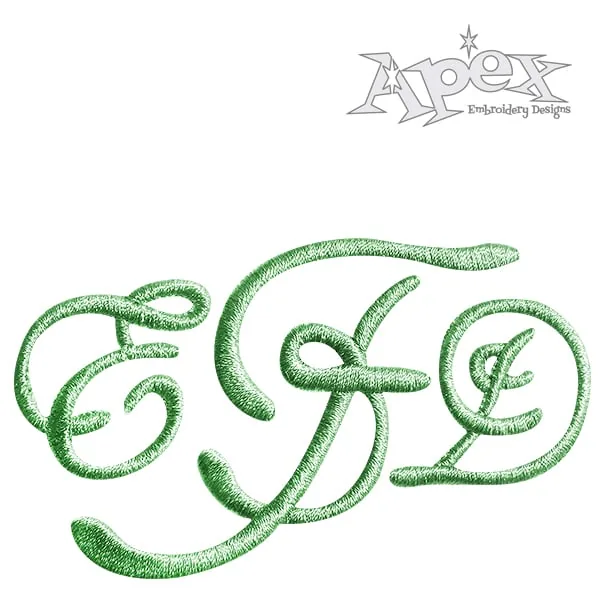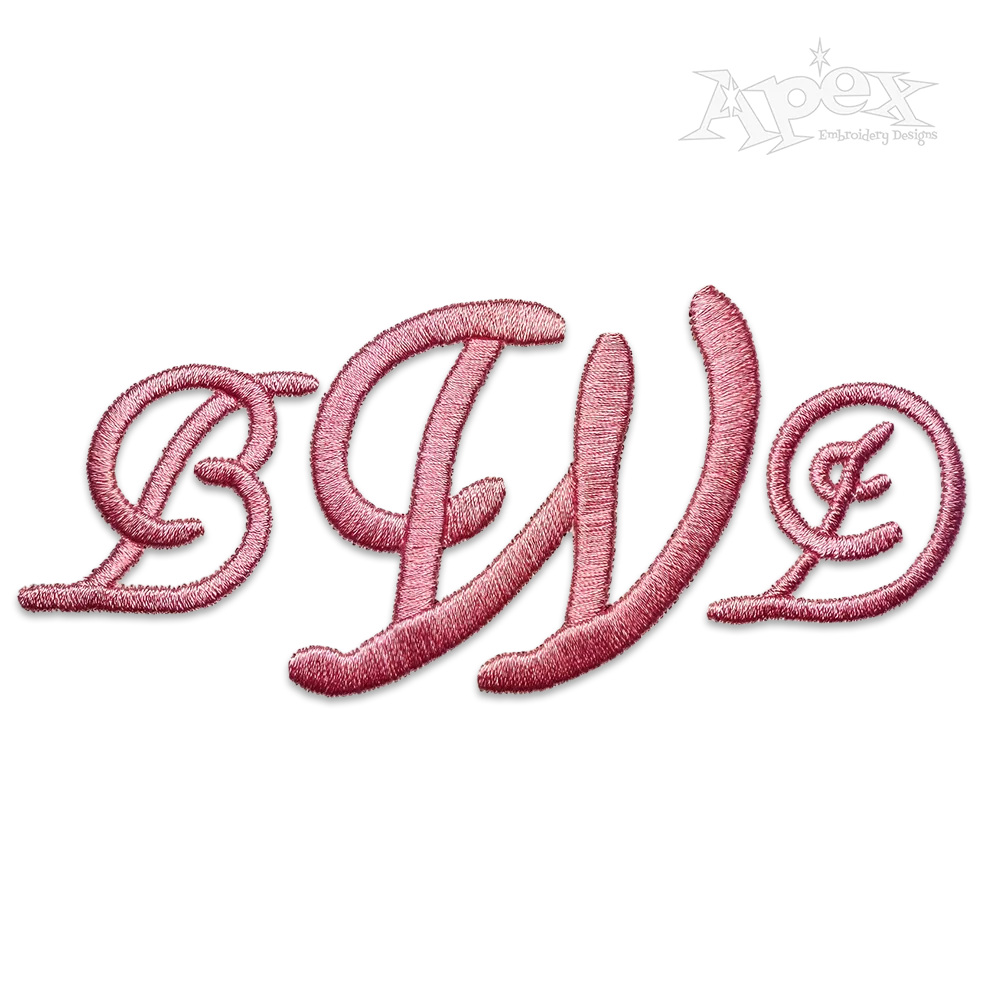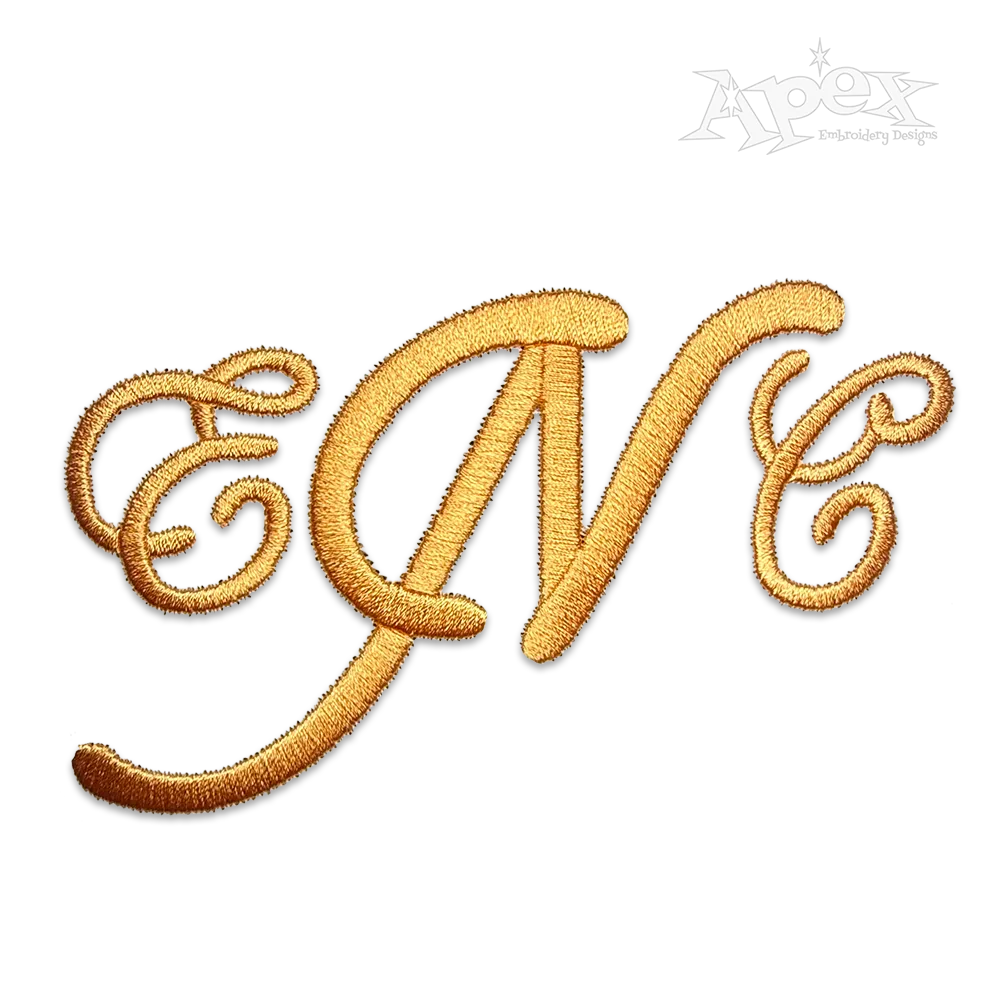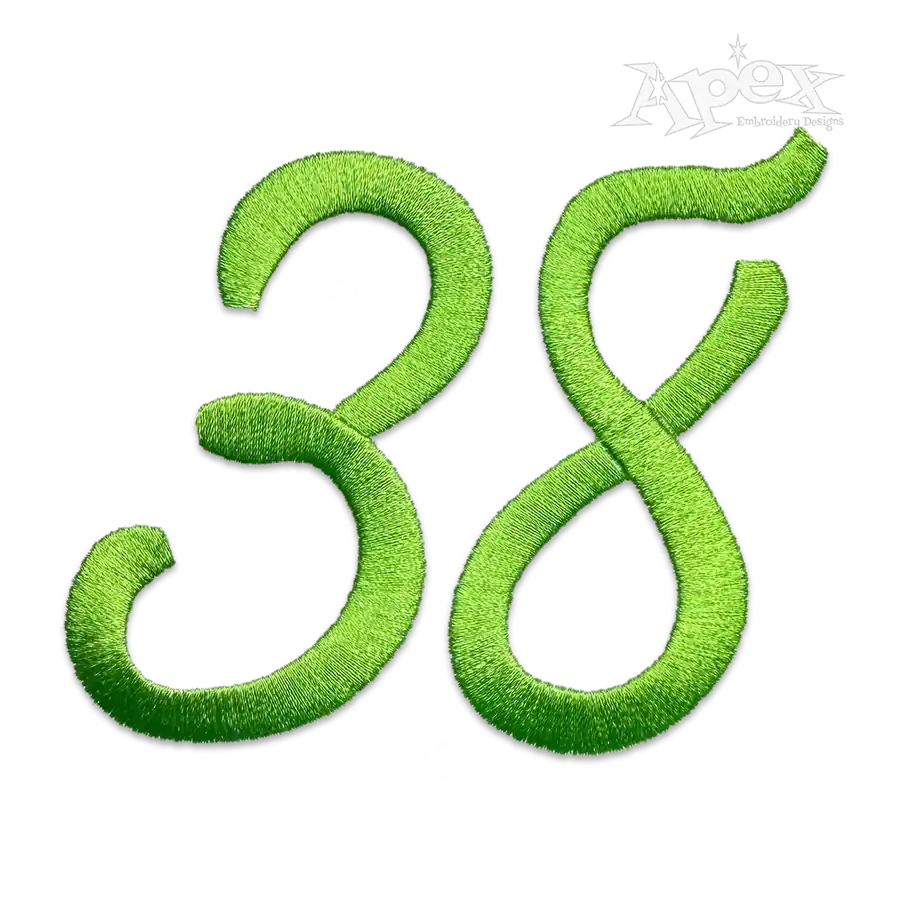
Garden Party Embroidery Font
Conceived amidst the dappled sunlight of an afternoon veranda tea, the Garden Party Embroidery Font captures the breezy, joyful elegance of open-air celebrations and blooming botanical estates. As digitizers, we envisioned a monogram alphabet that bridges playful botanical charm with traditional southern refinement—where gracefully poised ascenders, lilting swashes, and soft, petal-like curves translate effortlessly into thread. Every individual letter has been plotted with mindful intentionality, ensuring that your embroidery machine lays down a lustrous, fluid satin stitch that catches the light and brings an immediate sense of celebratory warmth to any woven surface.
Project Ideas for Garden Party Embroidery Font
This font's spirited yet sophisticated letterforms make it a premier choice for warm-weather celebrations, personalized gifting, and timeless heirloom sewing:
- Luxury Table Linens: Elevate crisp linen cocktail squares and hemstitched runners for garden luncheons, spring bridal showers, and coastal dinner parties.
- Bridal Party Keepsakes: Stitch sweeping single-letter initials or three-letter bridal monograms onto pastel satin getting-ready robes, cosmetic bags, and day-of slippers.
- Bespoke Resort Wear: Adorn linen camp shirts, sun hats, breezy cover-ups, and espadrille canvas uppers with personalized holiday lettering.
- Heirloom Nursery Essentials: Embroider classic pique cotton baby quilts, christening bibs, and plush knit cardigans with an enduring, romantic touch.
- Custom Market & Pool Totes: Add an oversized, colorful monogram to heavy-weave jute, straw bags, or boat totes for effortless sunny-day sophistication.
- Personalized Bedding: Create boutique hotel ambiance on boudoir throw pillows, crisp percale pillow shams, and master suite turn-down linens.
To let the organic sweep and fluid movement of the Garden Party alphabet shine, consider these time-honored placement strategies:
- Corner Diagonal on Table Linens: Position single initials 1.5 to 2 inches inward from the hemstitched corner point on a true 45-degree bias for a quintessential, relaxed estate look.
- Center Chest & Yoke: Use the 2-inch or 3-inch size positioned 3 to 4 inches below the center collar band on children's garments, nightwear, or linen blouses to naturally balance the neckline.
- Sleeve Cuffs & Collar Tips: The clean 2-inch letterform can be centered along a tailored cuff band or subtly angled onto the corner of a pointed collar for an understated, bespoke tailoring signature.
- Pocket Bands & Center Crests: When embroidering canvas carryalls or bath towels, position the 3.5-inch monogram centrally, maintaining ample negative space between the design and structural seam lines to let the embroidery breathe.
Garden Party Embroidery Font Craft & Letterform Details
Translating the buoyant curves of a handwritten, garden-inspired script into flawless embroidery requires obsessive technical discipline. Rather than relying on automated conversions, each glyph in the Garden Party collection has been meticulously mapped along the natural grain of letter creation. We have integrated variable stitch angles throughout every arch, bend, and loop, preventing dense gathering and thread bunching where lines converge. The gentle tapers mimic the natural lift of a pointed calligraphy pen, yielding crisp serifs and graceful terminal swells that remain smooth without puckering.
Furthermore, calibrated underlay sequences provide a stable foundation beneath the topstitching, lending each letter a subtle, dimensional relief that rests proud of textured fabrics like linen, terry, and pique. With generous pull compensation engineered directly into the column widths, curves remain perfectly round and uprights remain straight, delivering a pristine, artisan-level stitchout that honors the beauty of fine hand-tailoring on modern embroidery machines.